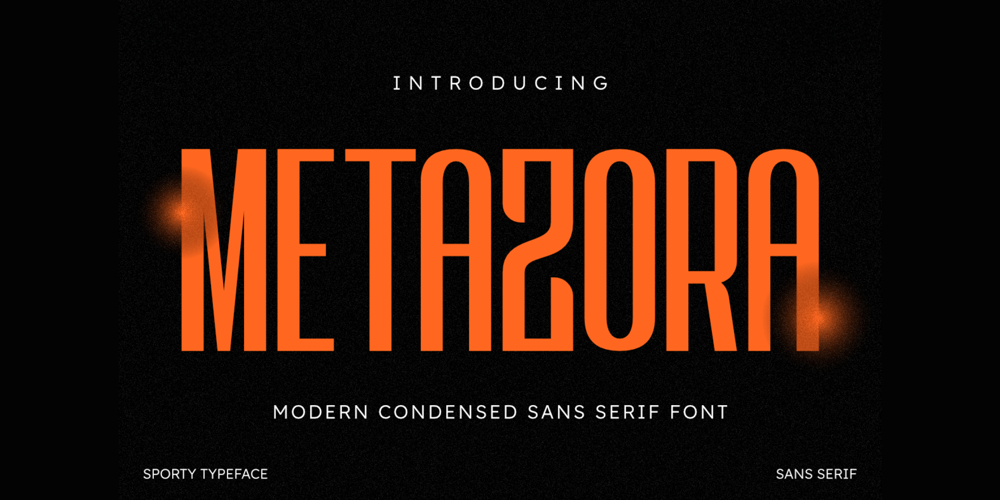
Metazora Font Family was designed by Dani Irawan and published by GraphTypika. Metazora contains 2 styles and family package options. Introducing Metazora is a modern condensed display sans serif font that blends bold geometry with sleek minimalism, crafted to command attention in dynamic environments. Its streamlined, high-impact design features sharp angles and compact proportions, ideal for sporty themes, headers, titles, and headings that demand urgency and energy. The font’s clean, geometric lines ensure legibility at a glance, while its condensed structure maximizes space efficiency—perfect for athletic branding, posters, social media graphics, or any project requiring a contemporary, assertive edge.Whether highlighting action-packed headlines or elevating editorial layouts, Metazora strikes a balance between modern aesthetics and functional versatility, making it a go-to choice for bold, movement-driven typography.